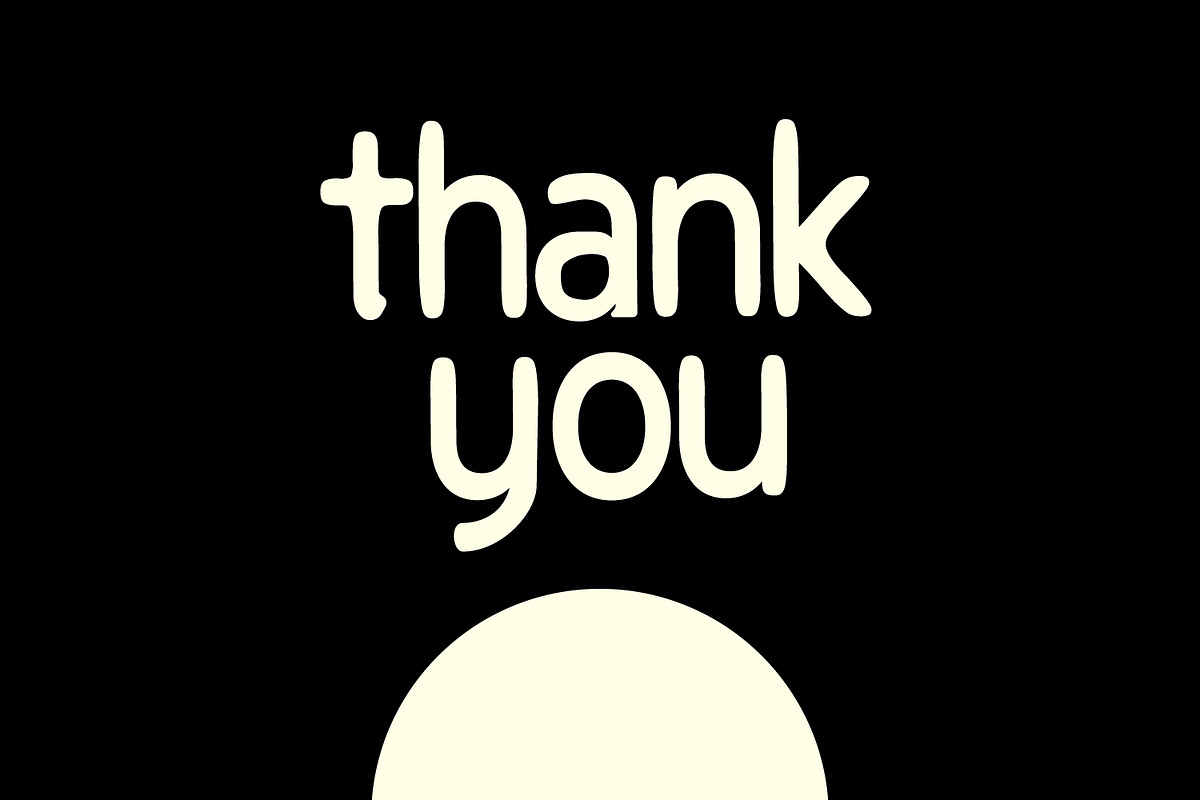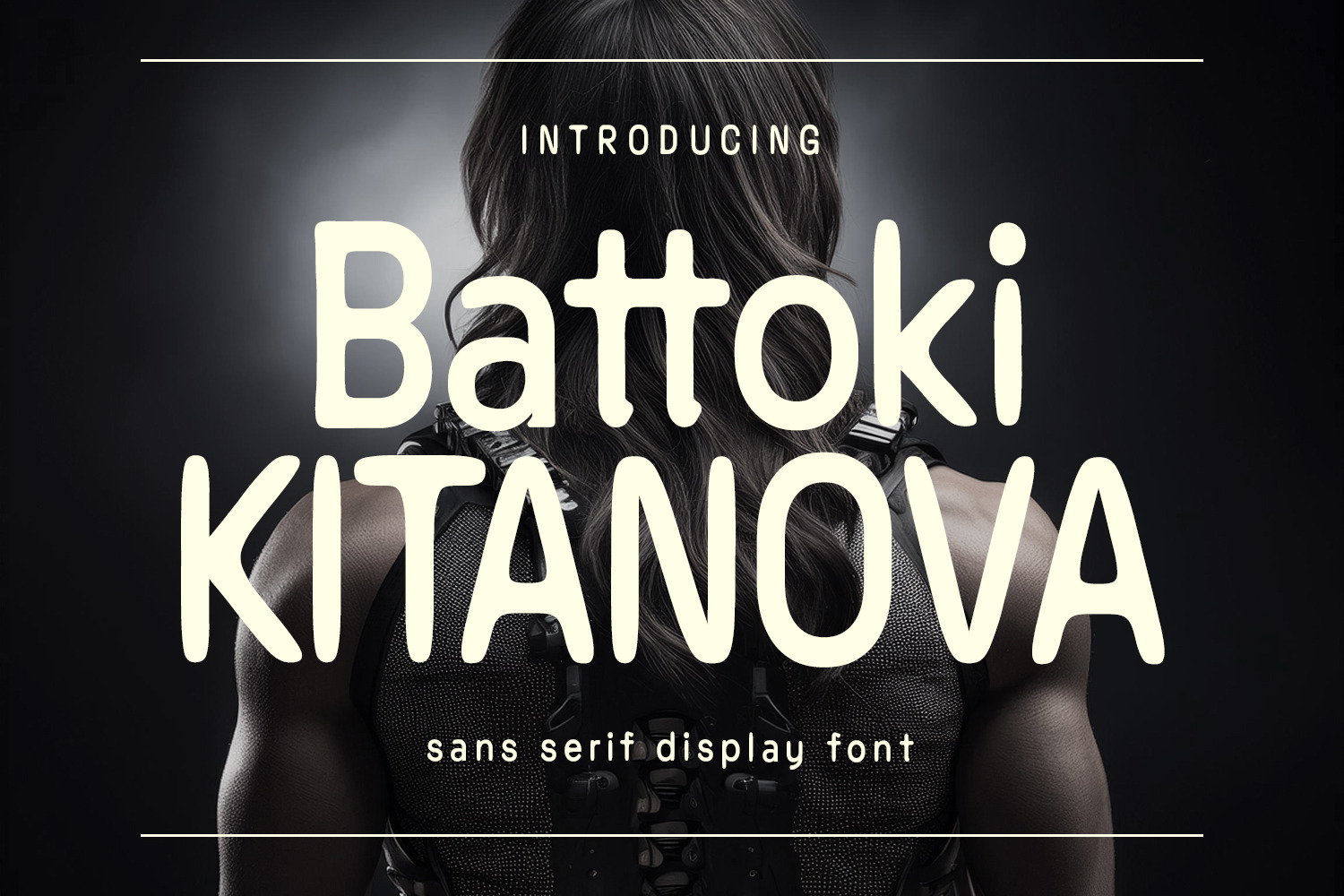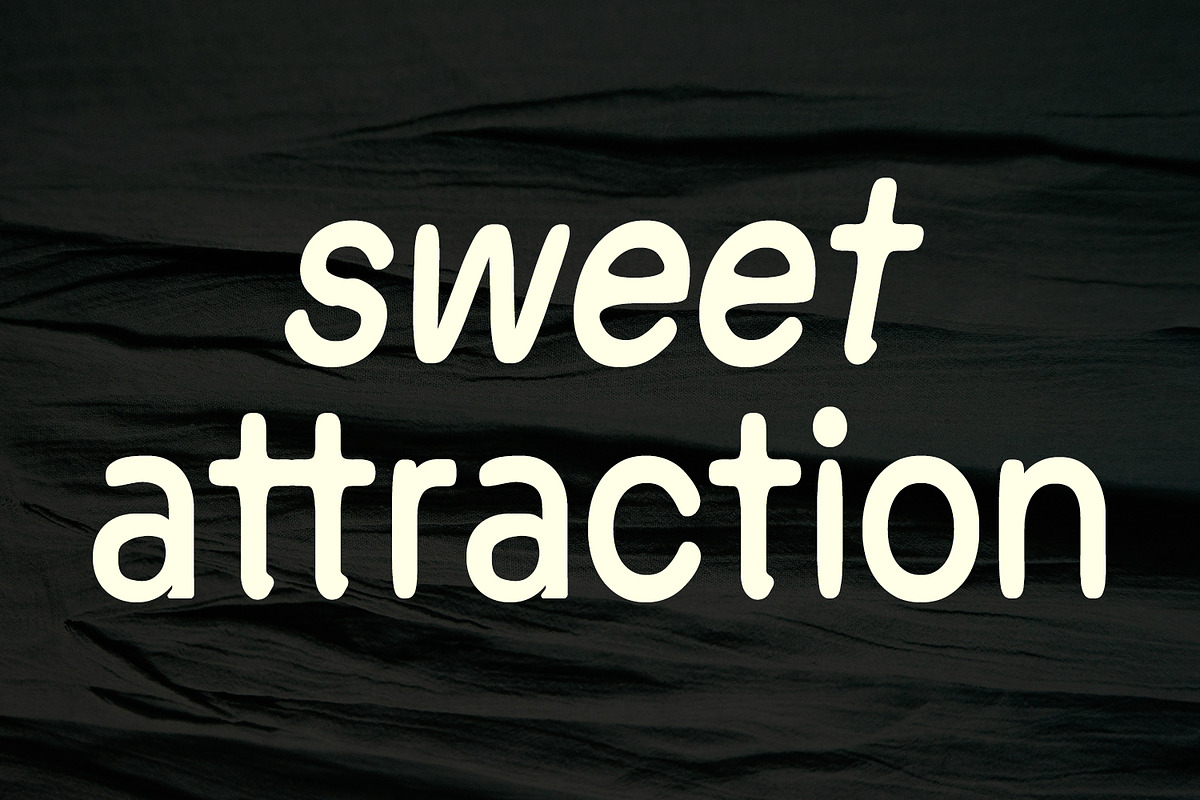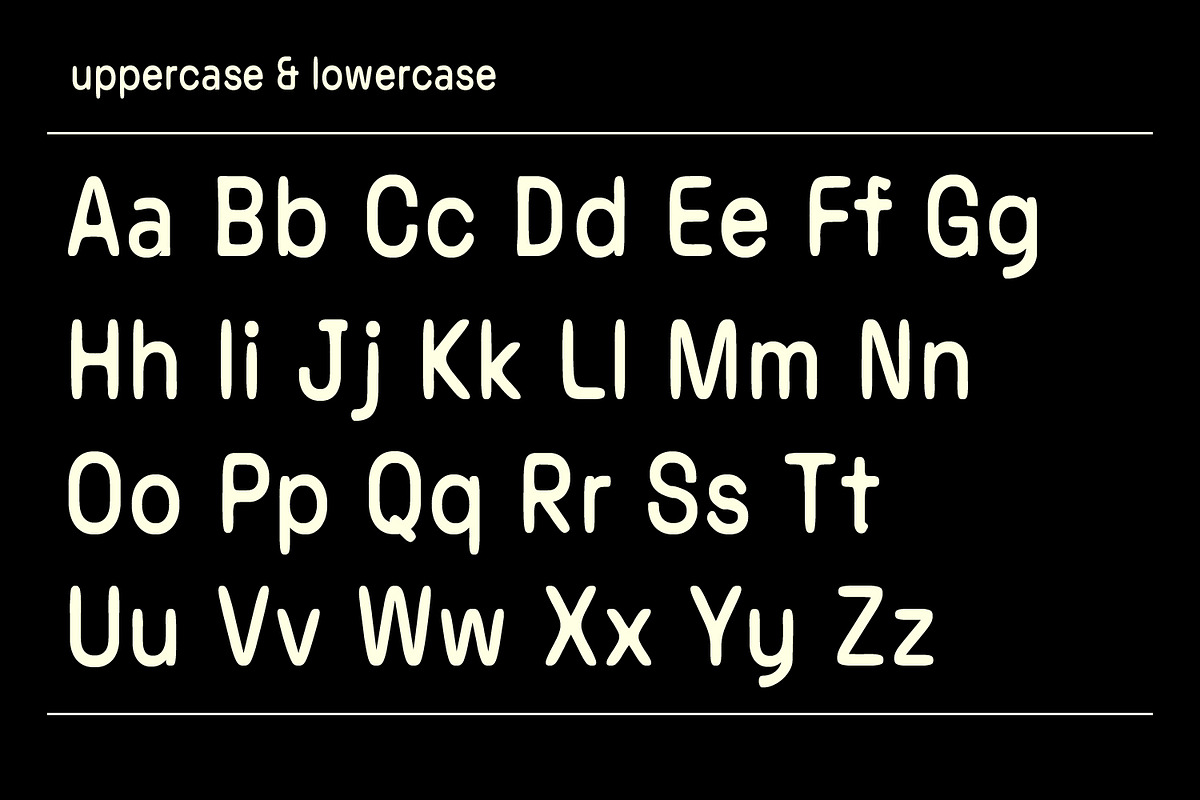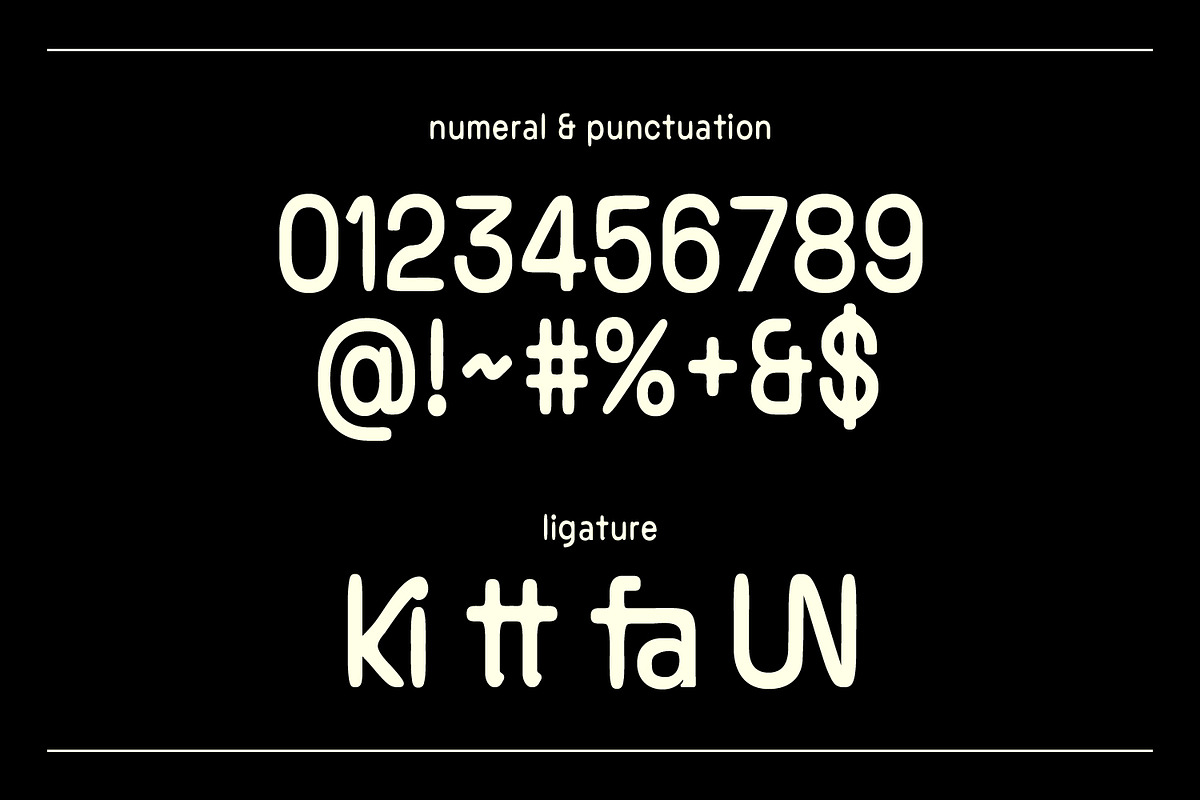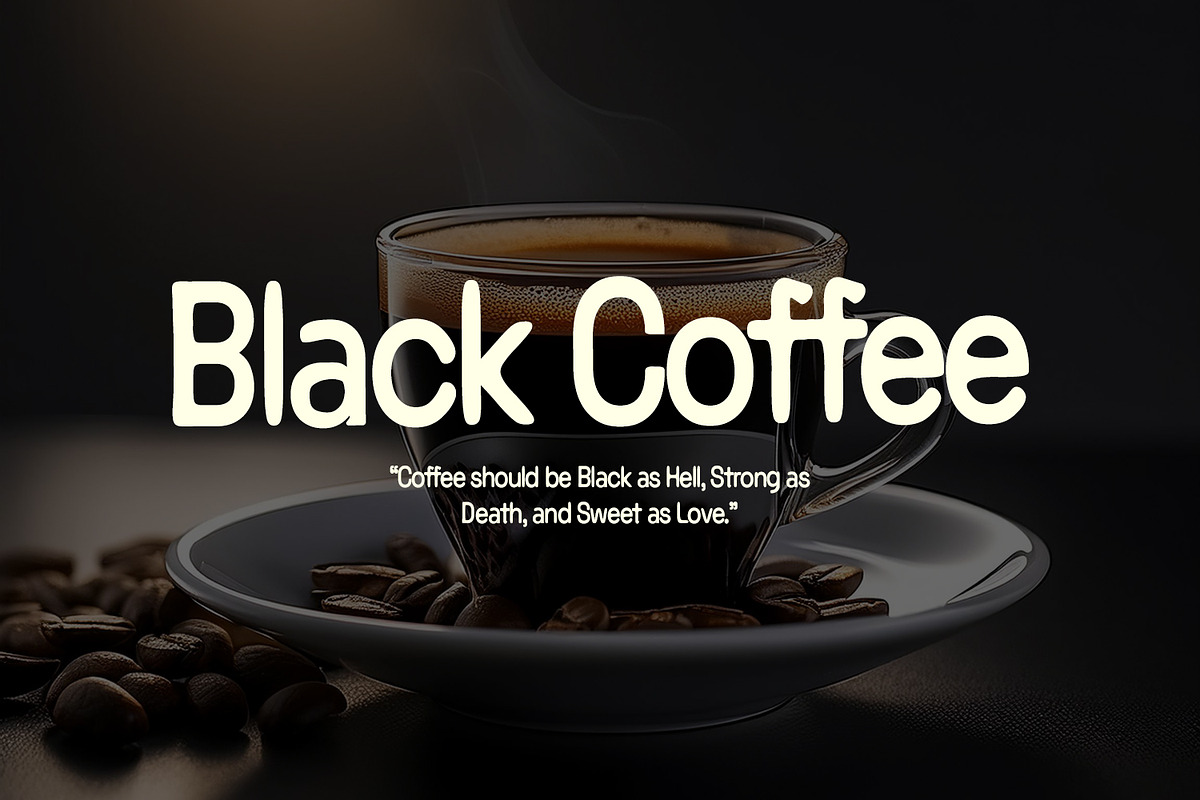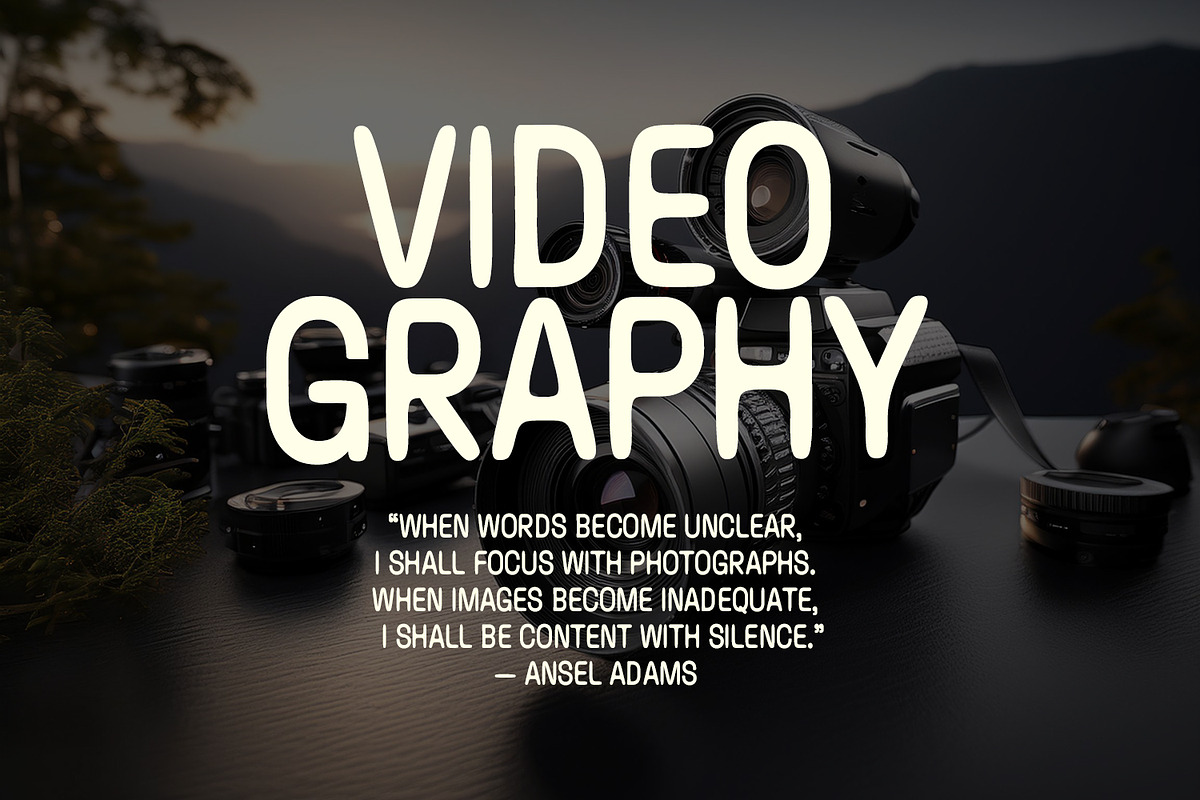
Battoki Kitanova Sans Display Font
Battoki Kitanova is a playful modern display font. Bold stroke, fun character with a bit of ligatures. To give you an extra creative work. Battoki Kitanova font support multilingual more than 100+ language. This font is good for logo design, Social media, Movie Titles, Books Titles, a short text even a long text letter and good for your secondary text font with script or serif. Make a stunning work with Battoki Kitanova.